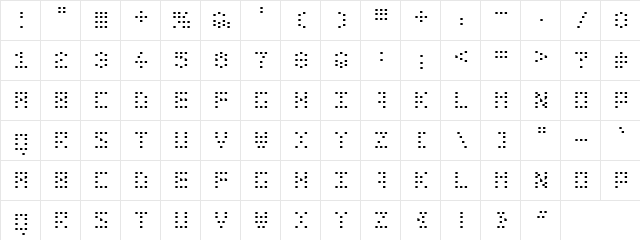
Design Context for Bit Dotted Typeface
Bit Dotted celebrates the constraints of early digital type, turning pixel geometry into a distinctive and immediately recognisable style.
Well-suited to indie game interfaces, retro computing aesthetics, and pixel art-adjacent design work.
Pro Tip: Use Bit Dotted at sizes that align with its pixel grid for the sharpest rendering — scaling to non-integer multiples can introduce unwanted blur.